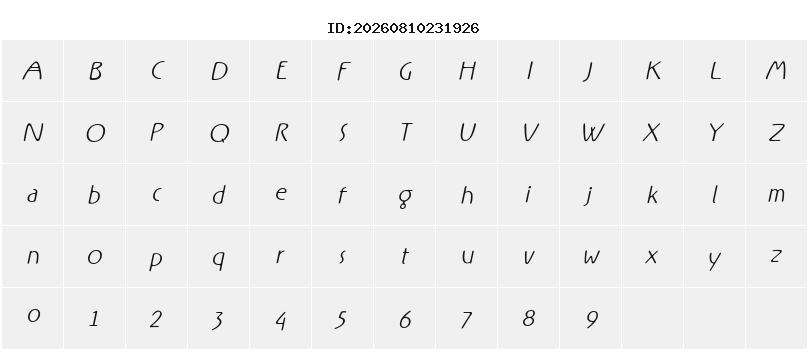
Rx-FiveFive Preview
• Font Name: Rx-FiveFive
• Designer: Apostrophe (')
About Rx-FiveFive.ttf
Rx-FiveFive.ttf is a modern, elegant sans-serif font designed for ultimate readability and visual harmony. Perfect for branding, headlines, web design, and print materials.